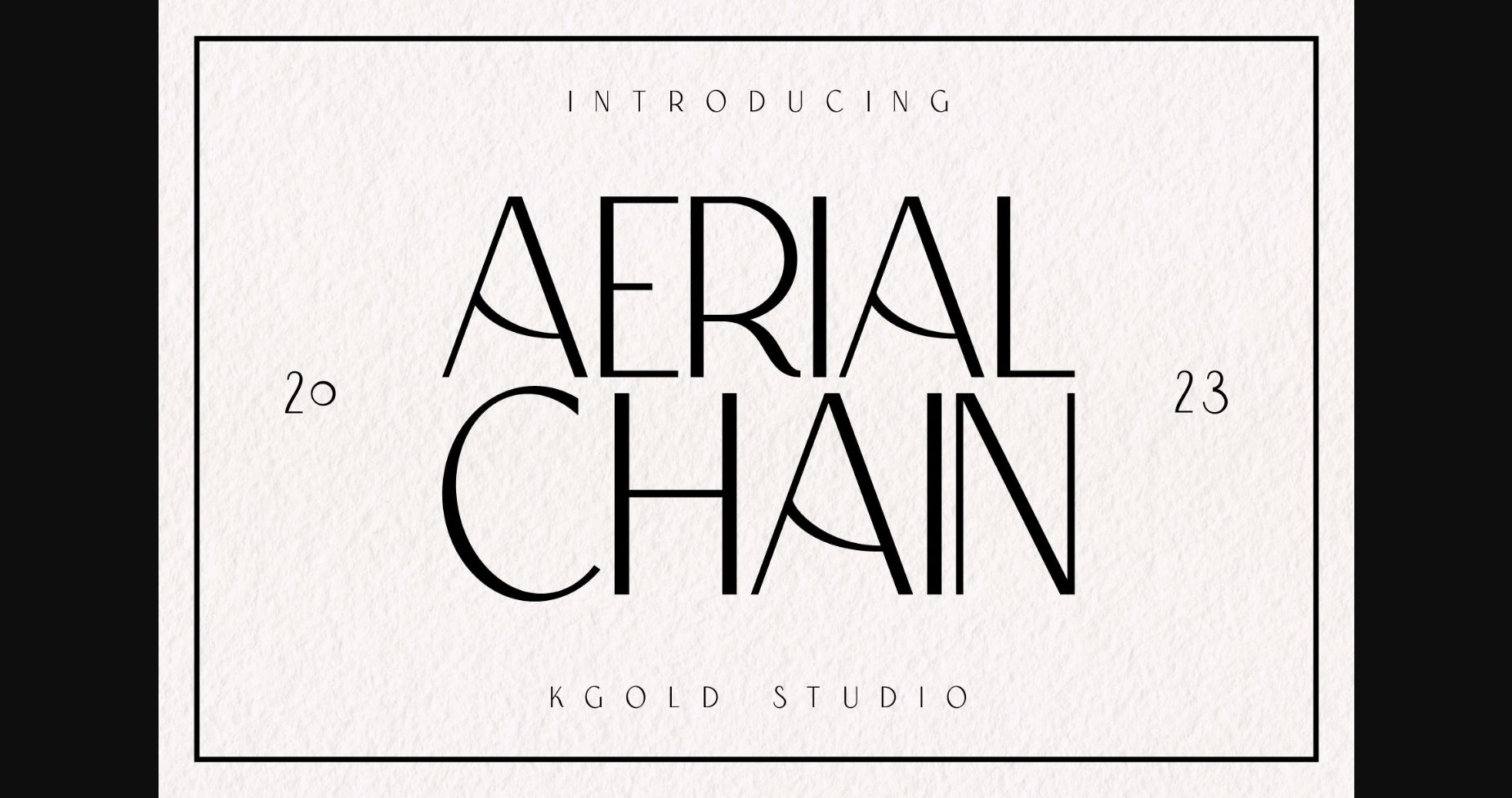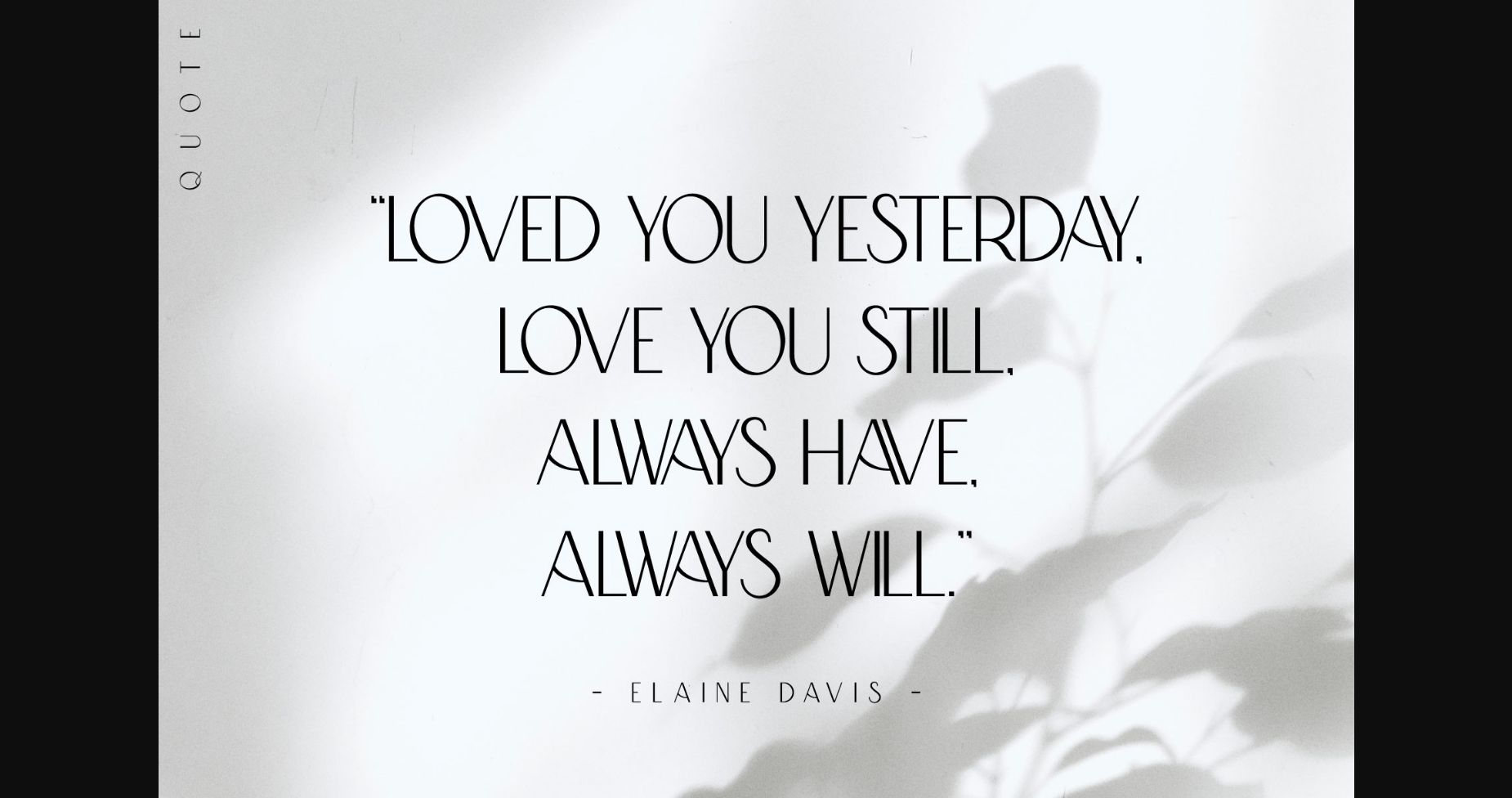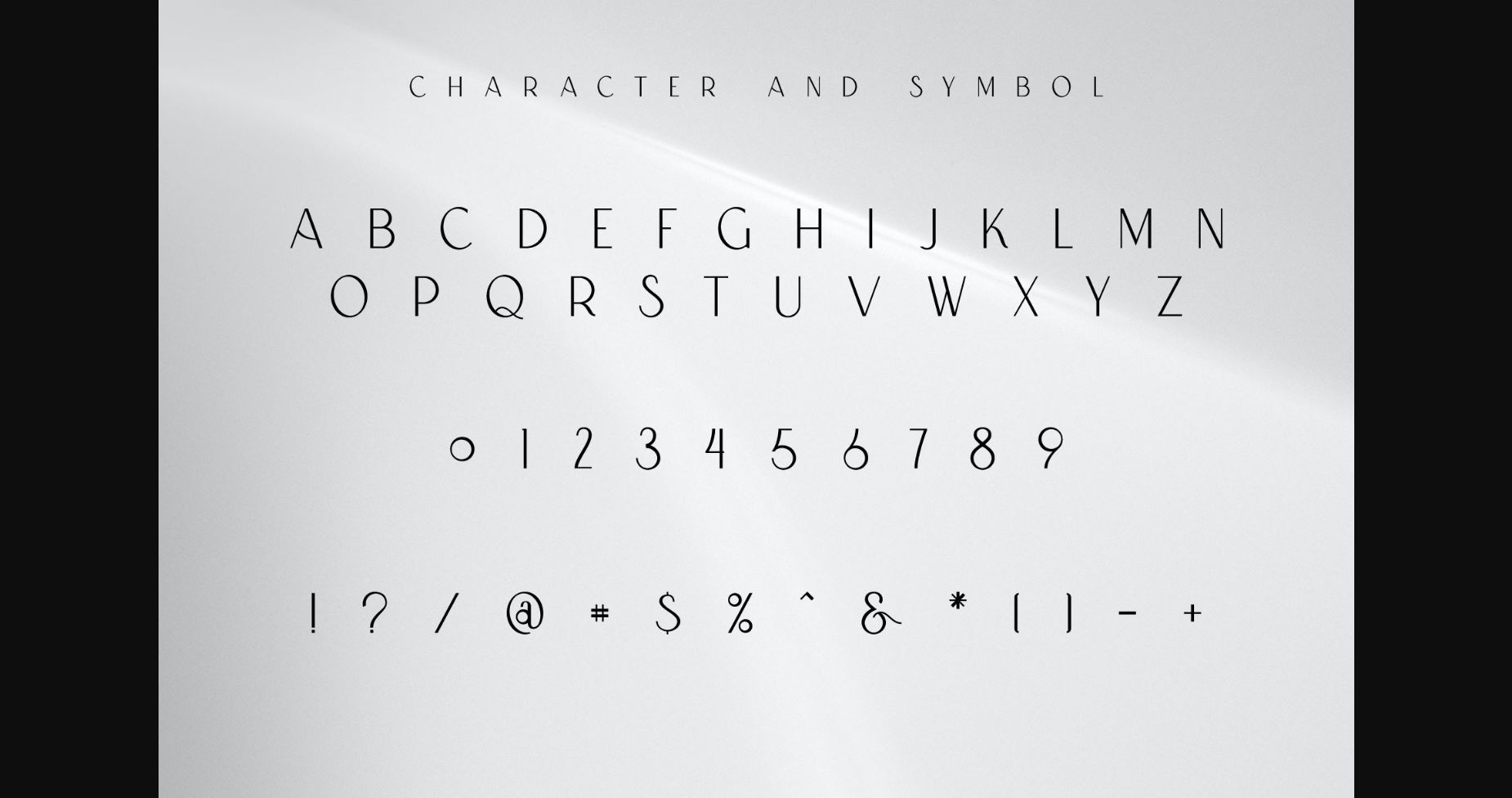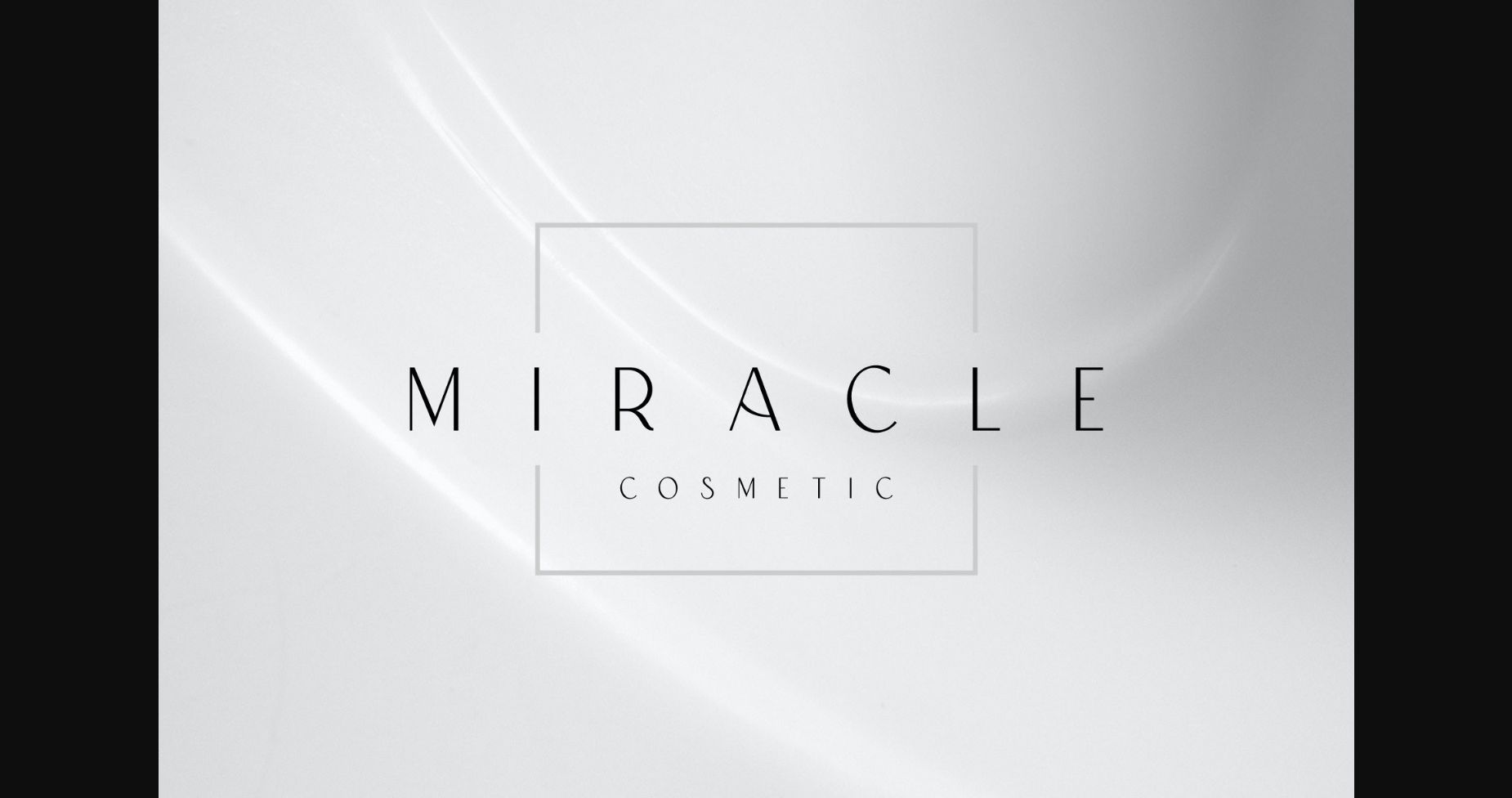
About Aerial Chain Font
Aerial Chain is a modern and stylish sans-serif font masterfully crafted to become a true favorite. Contemporary and fresh, it is perfect for any design you wish to create. Add it to your creative projects and make them outstanding!